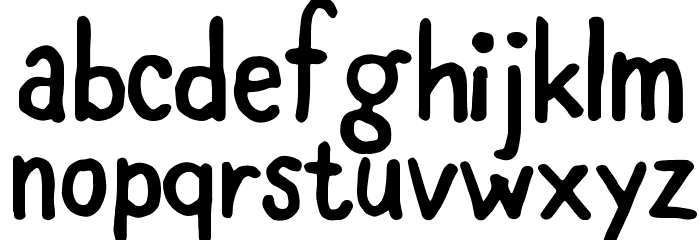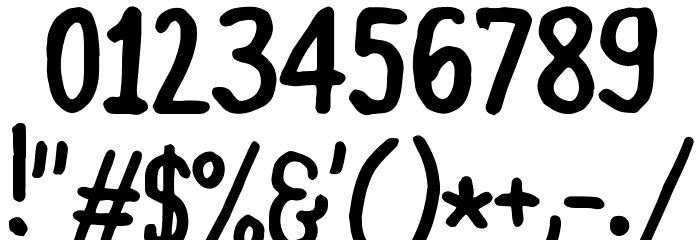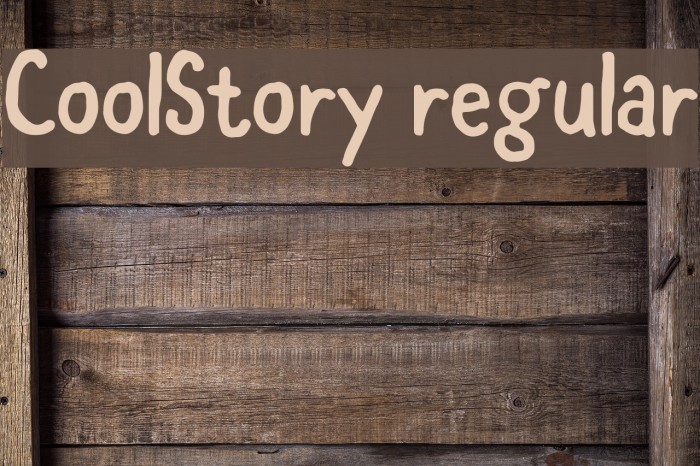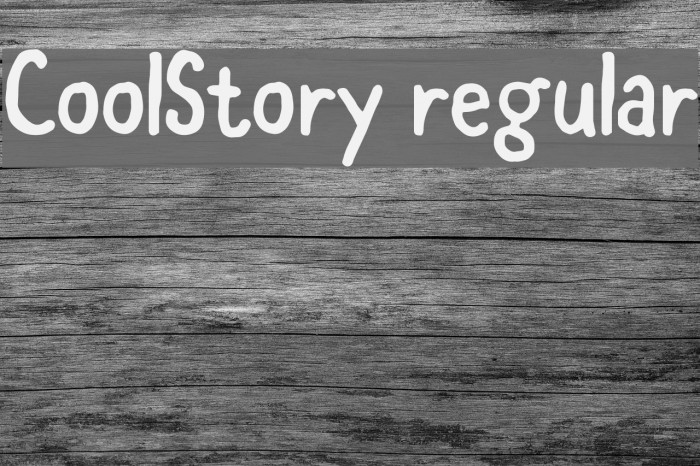
CoolStory regular Font
This font features a playful and informal style, characterized by its rounded and slightly irregular letterforms. The strokes are bold and consistent, giving it a friendly and approachable appearance. The uppercase and lowercase letters maintain a uniform height, contributing to its cohesive look. The numerals and special characters are designed to match the overall aesthetic, ensuring versatility across various applications. Its hand-drawn quality makes it ideal for projects that require a personal touch.
A playful, hand-drawn font with bold, rounded letterforms.
- Proposed Projects: Ideal for children's books, casual branding, greeting cards, and playful posters.
- Category: Handwritten
- Overall Style: Playful